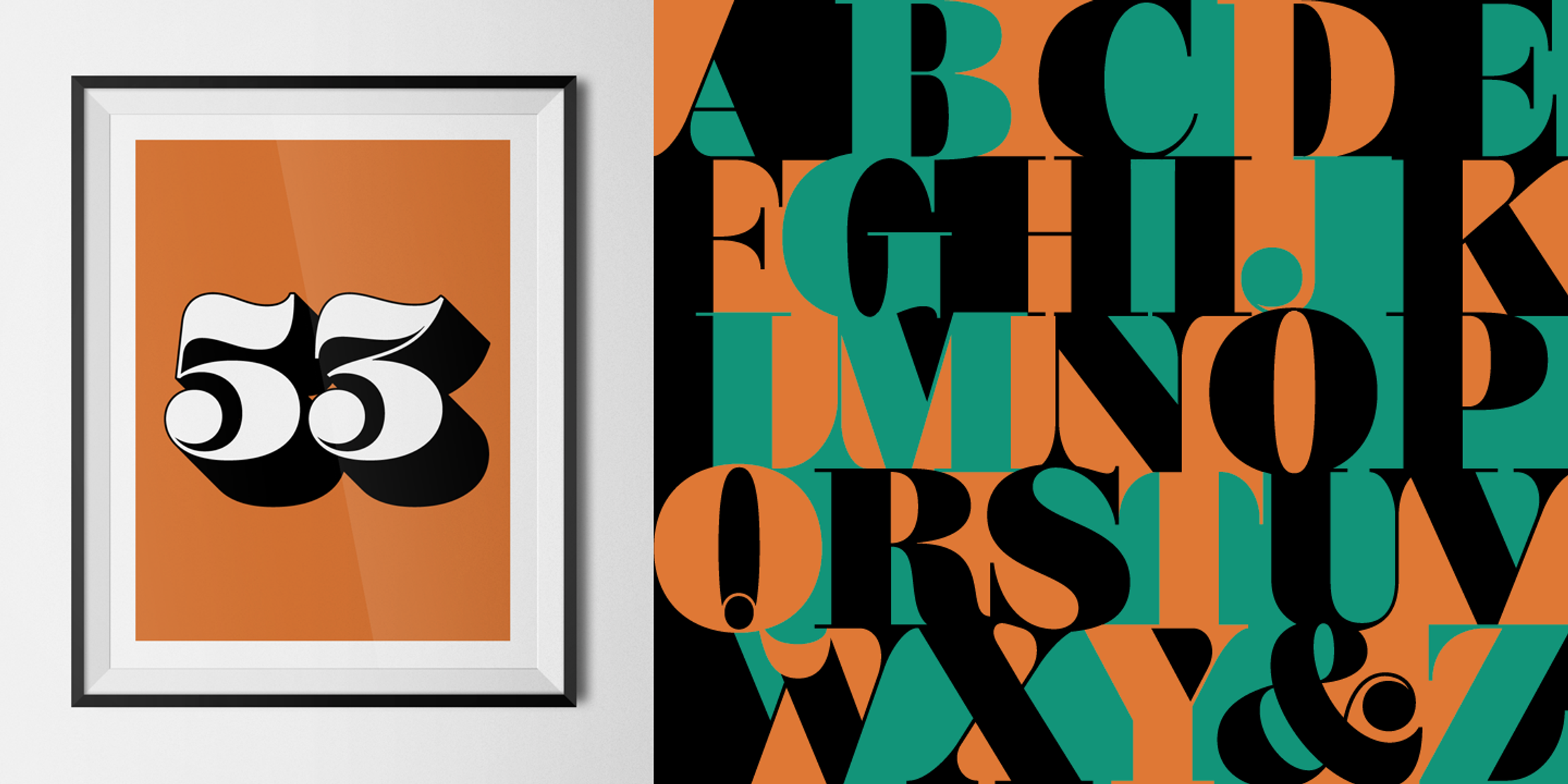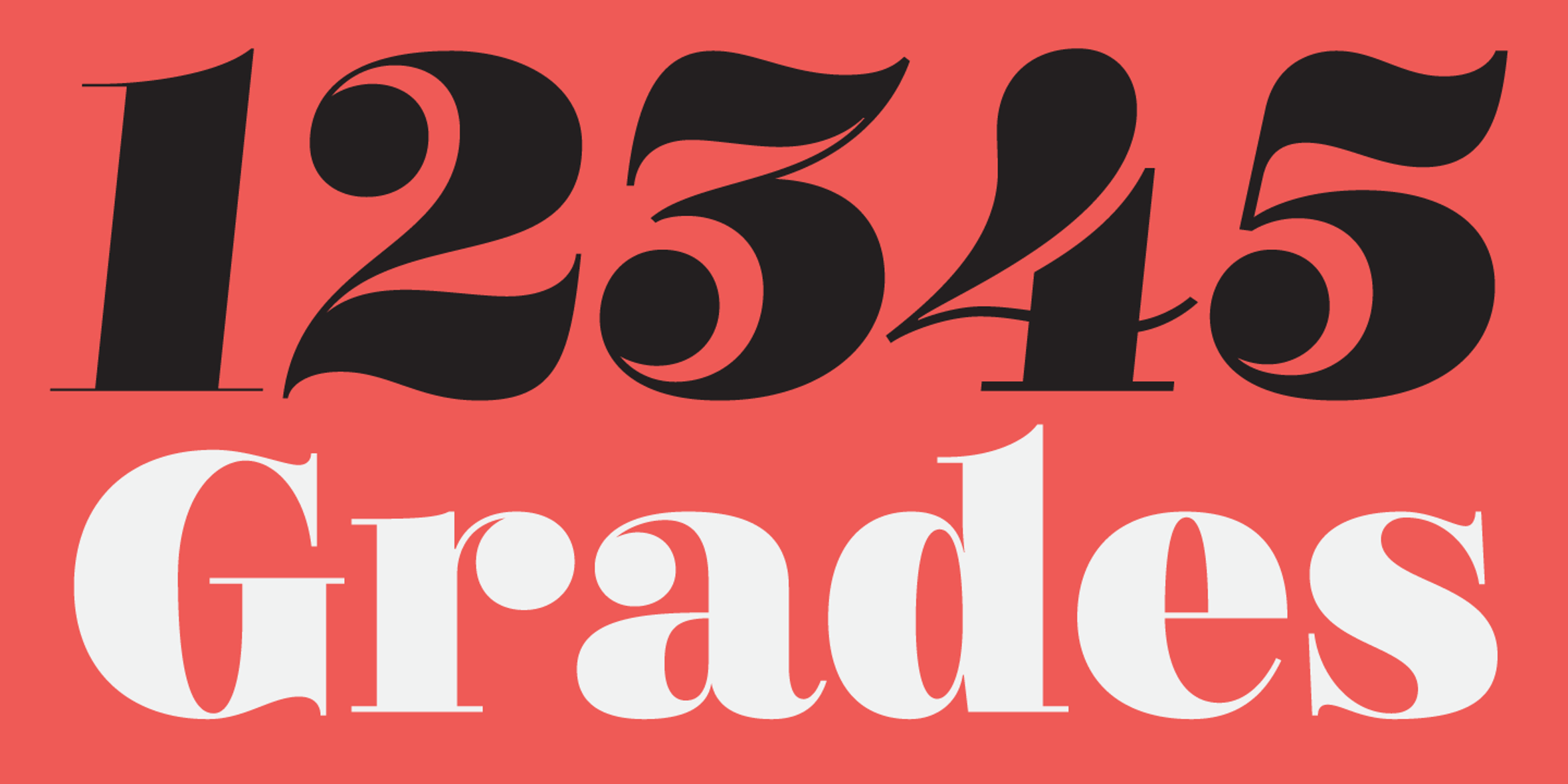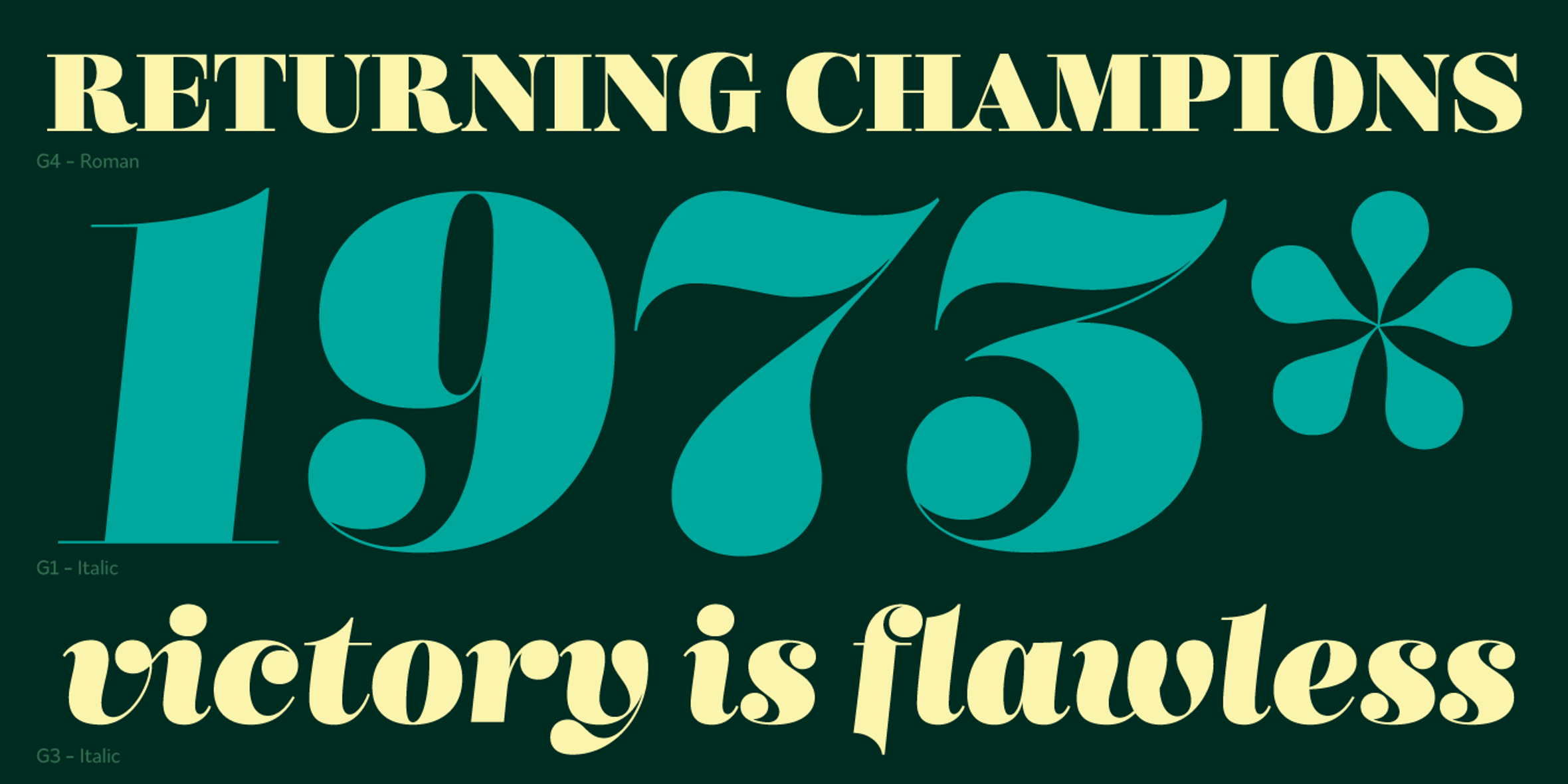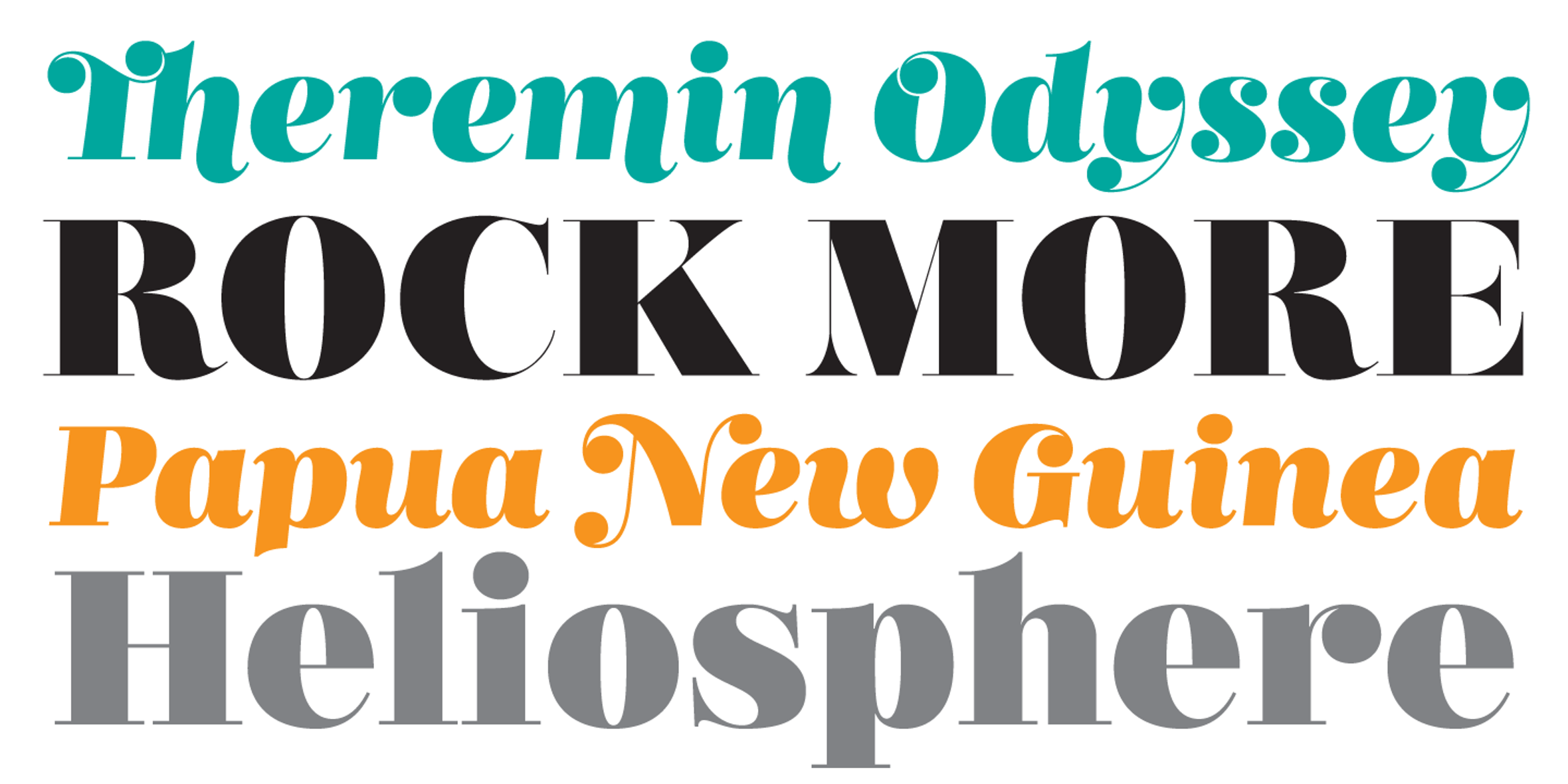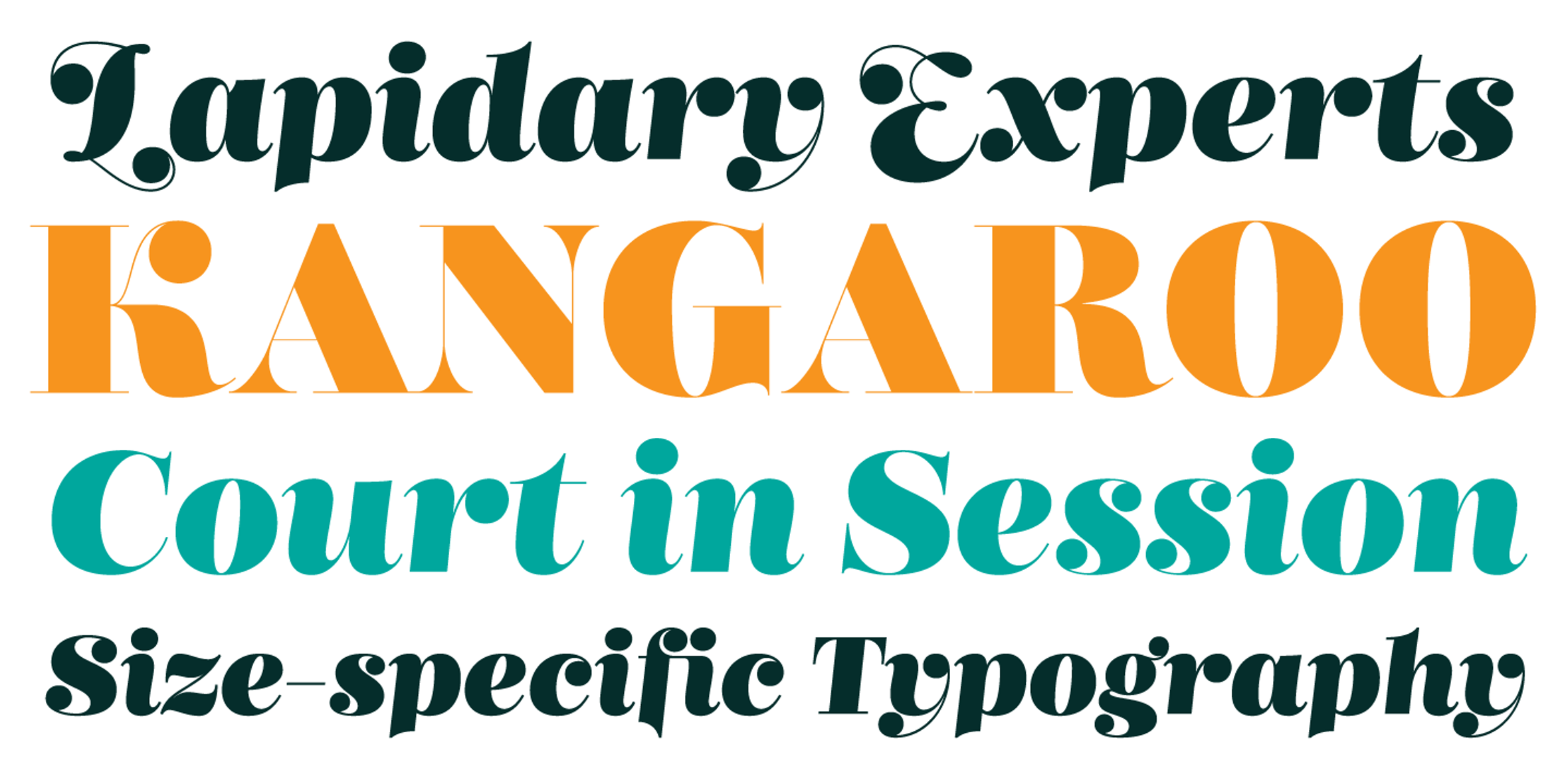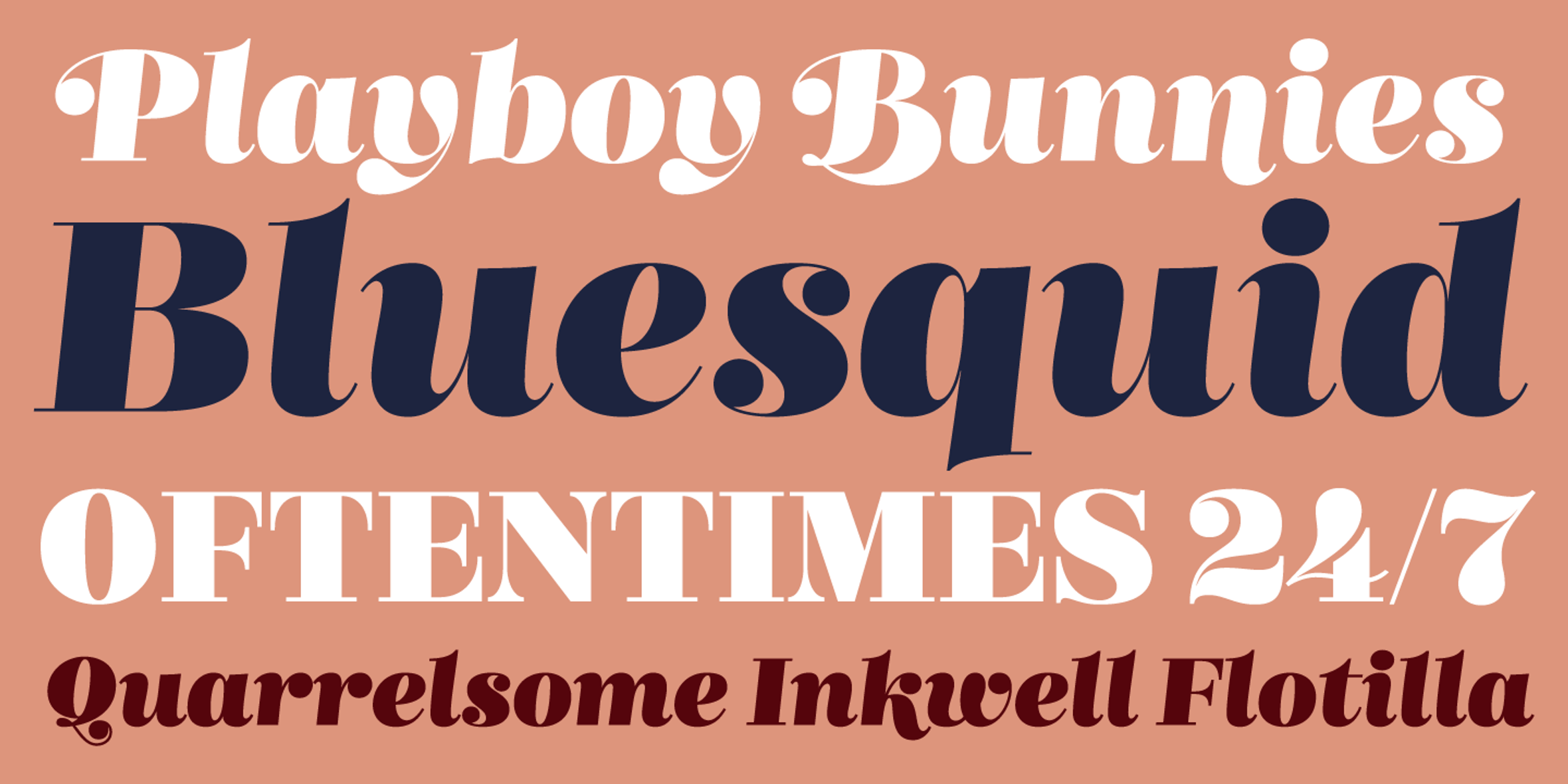
Mastadoni
Mastadoni is a bold headliner typeface with high contrast in a Didone style. It has five optically graded styles for designers who understand scale and distance can mean needing slightly less contrast. This typeface has a big x-height, small cap height, and stubby ascenders and descenders, contributing to an overall appearance different from most Didones. Mastadoni would find itself immediately at home in glossy magazines, offering a different aesthetic from other expected choices.
- Common Ligatures
- Discretionary Ligatures
- Fractions
- Stylistic Alternates
- Swashes